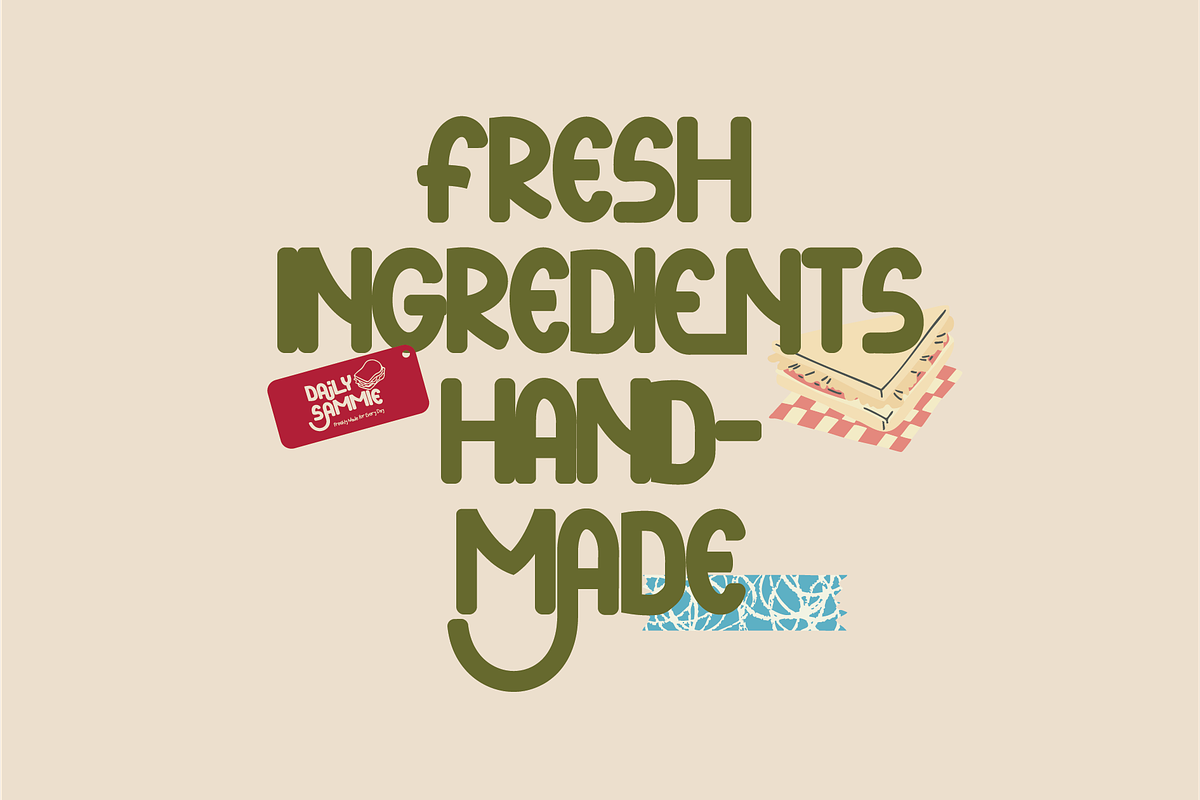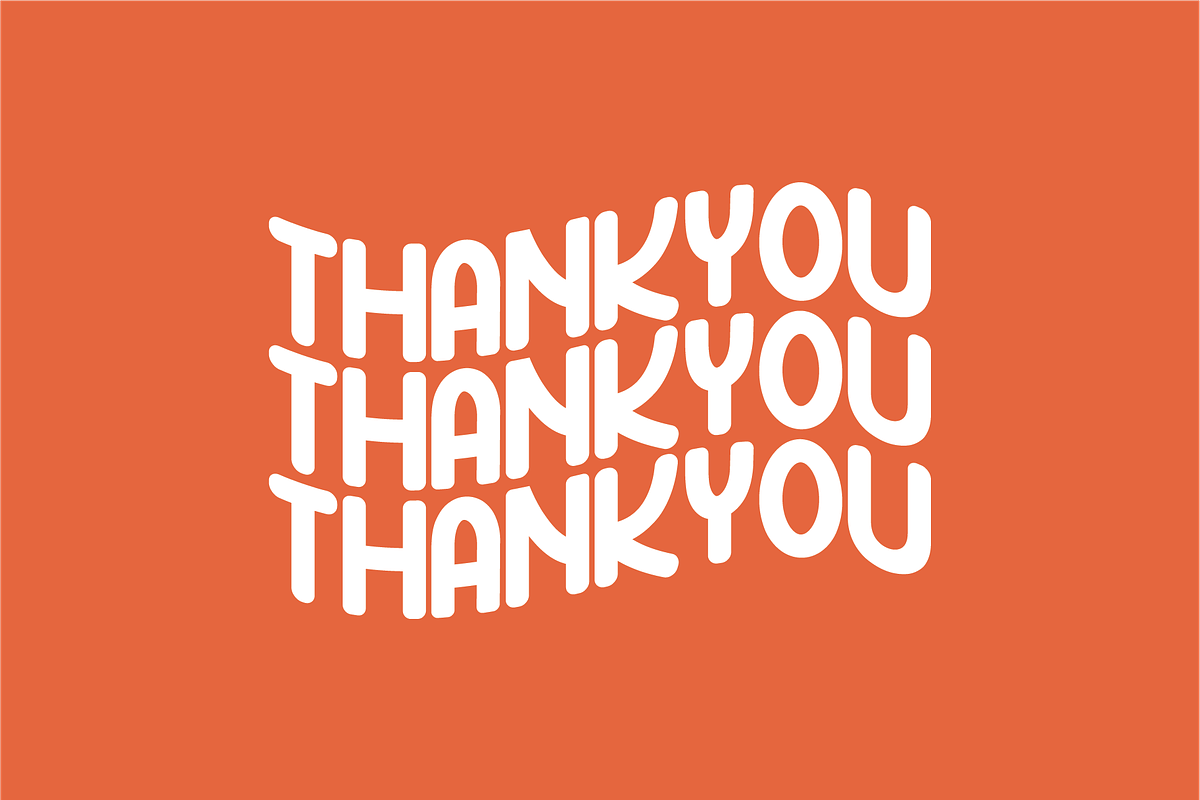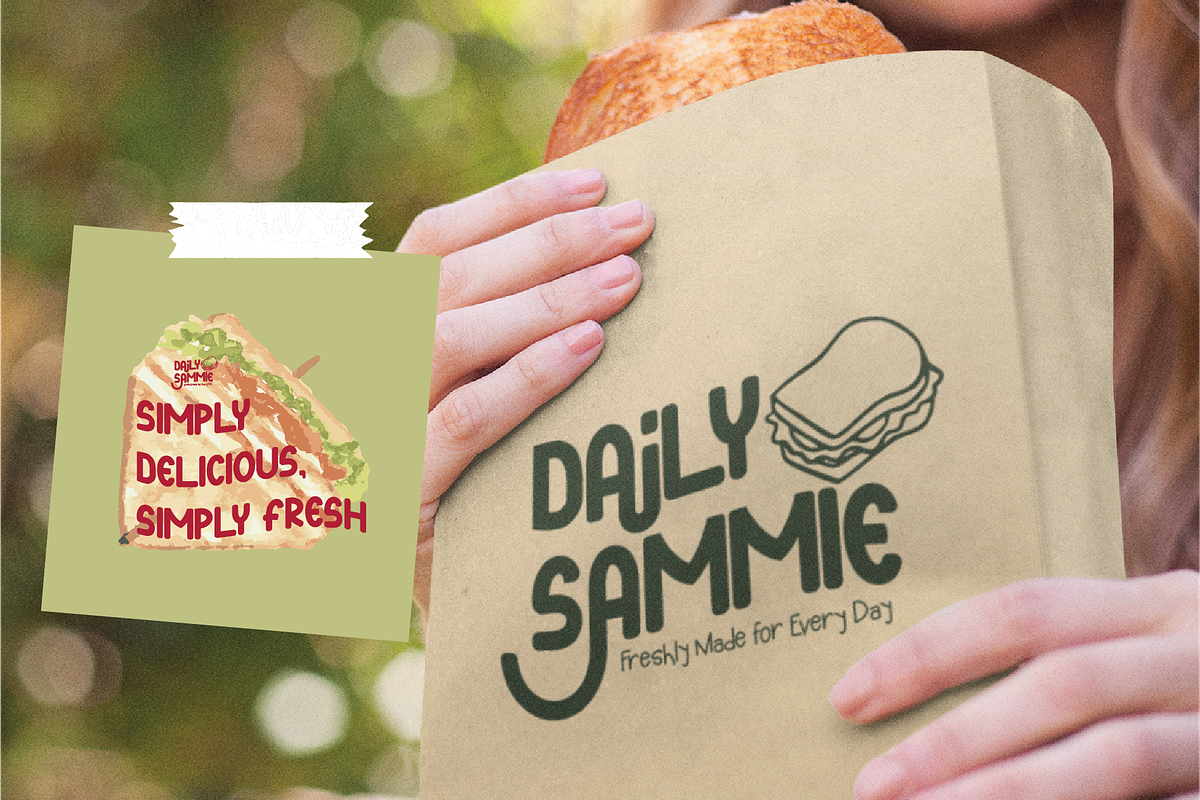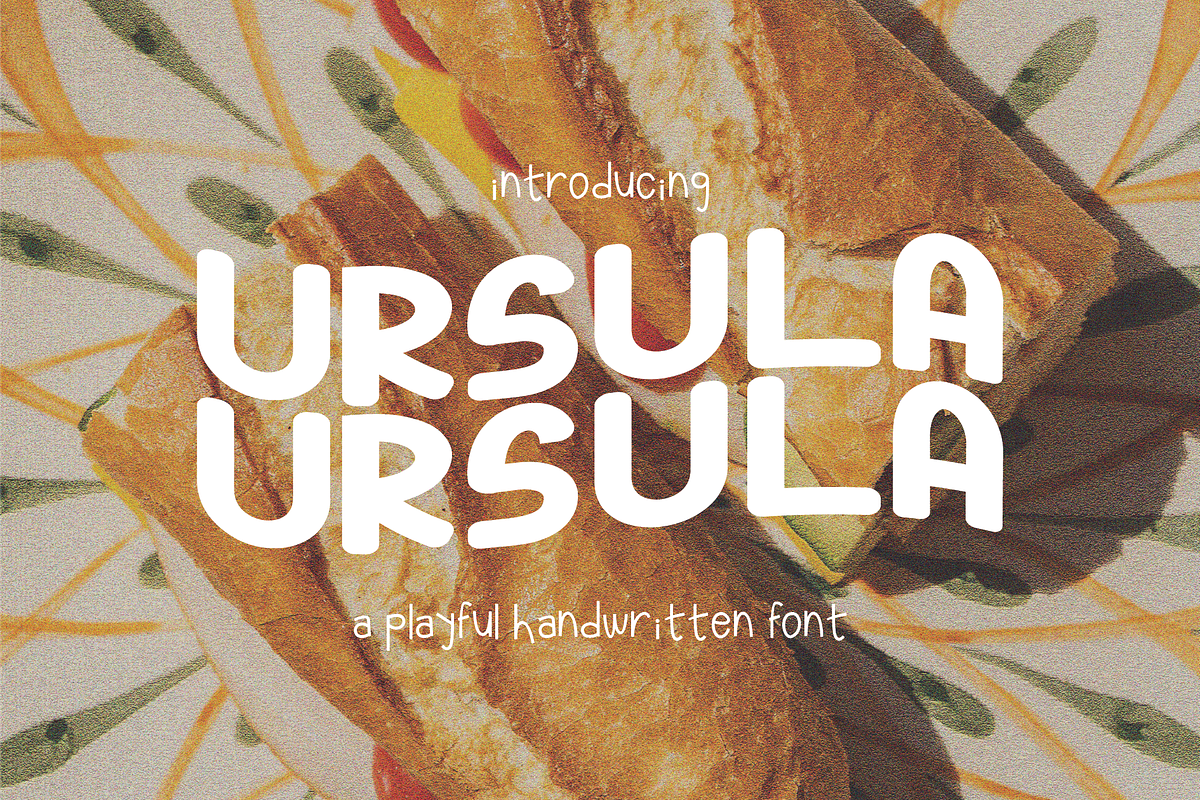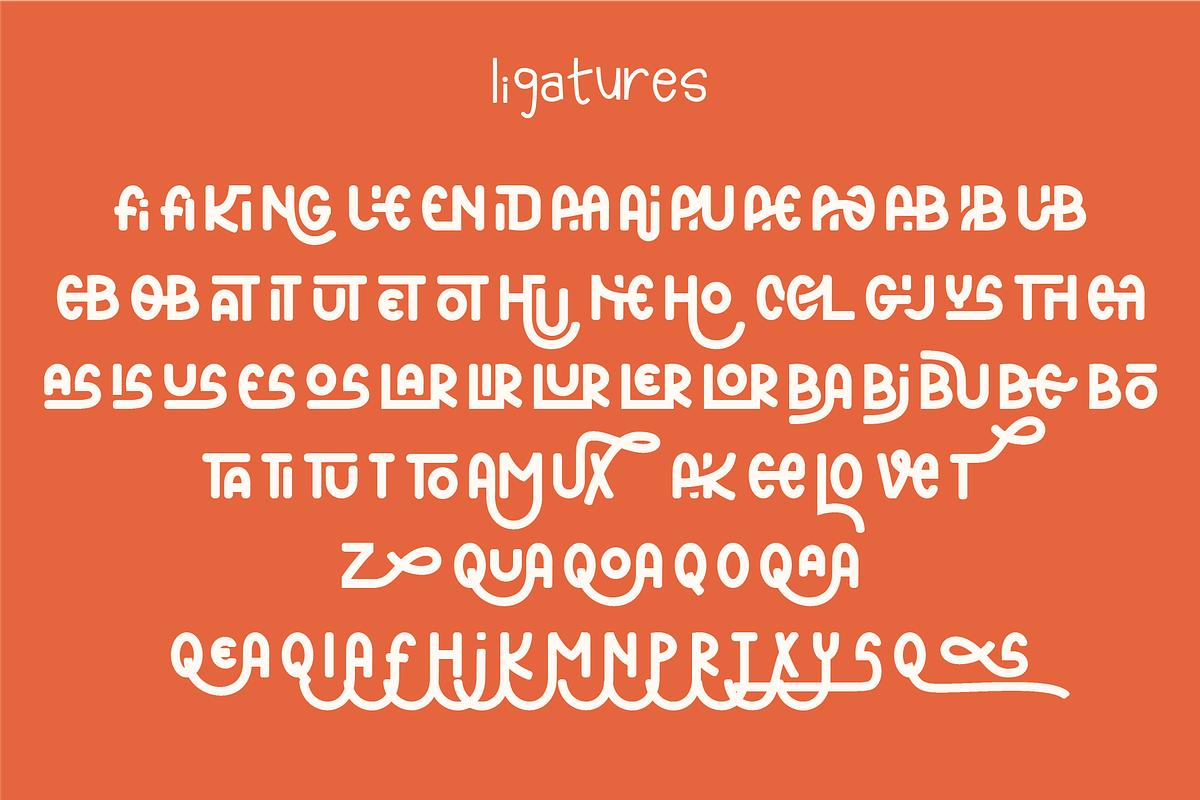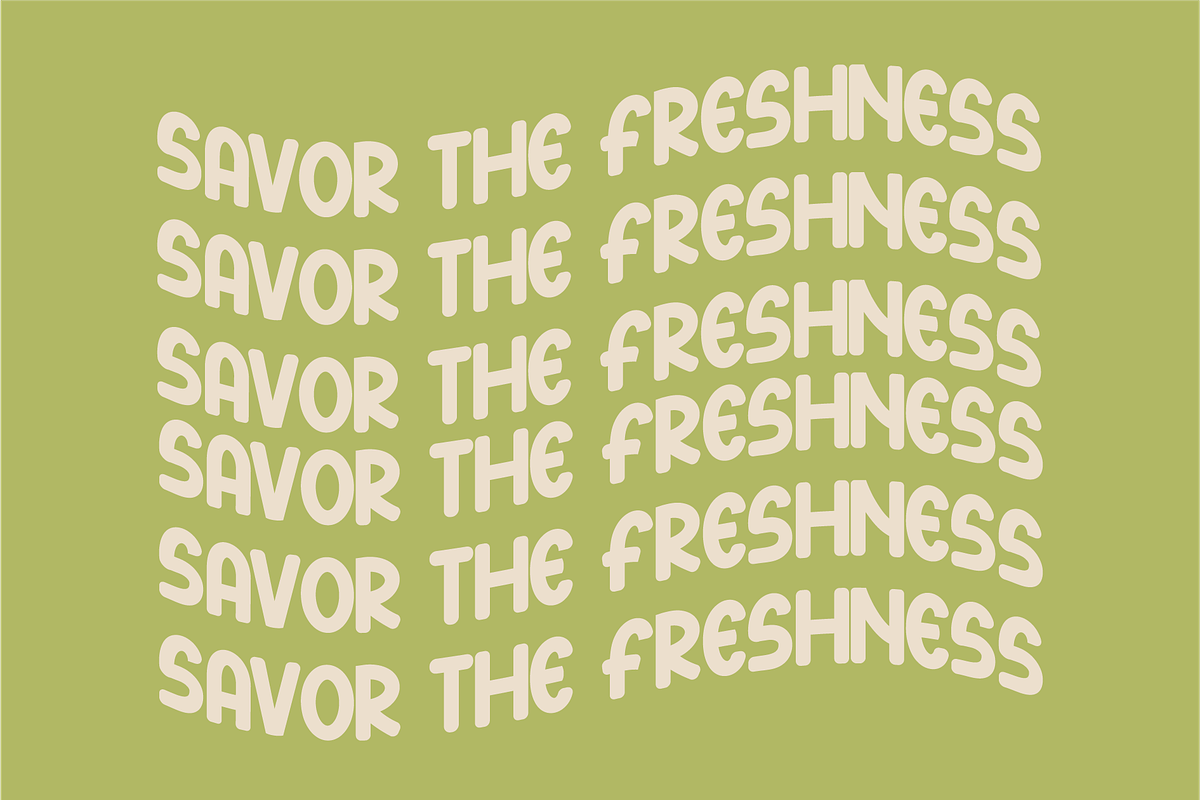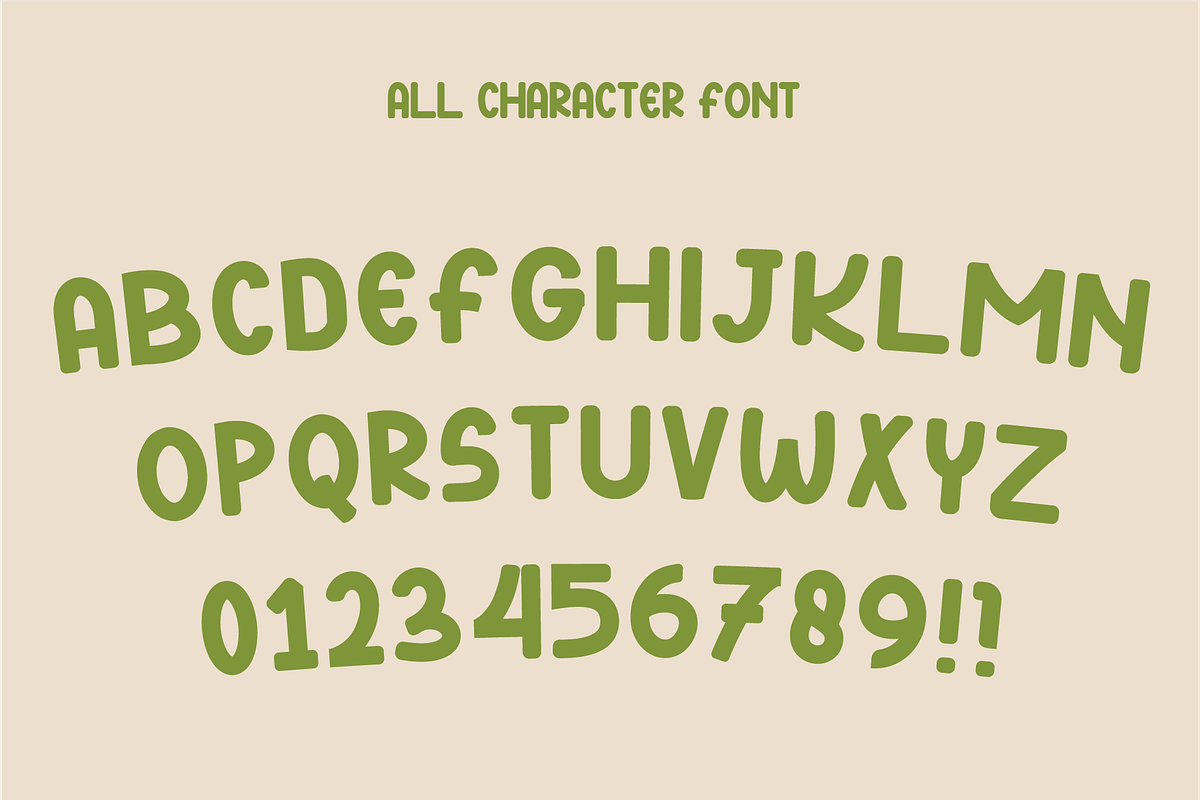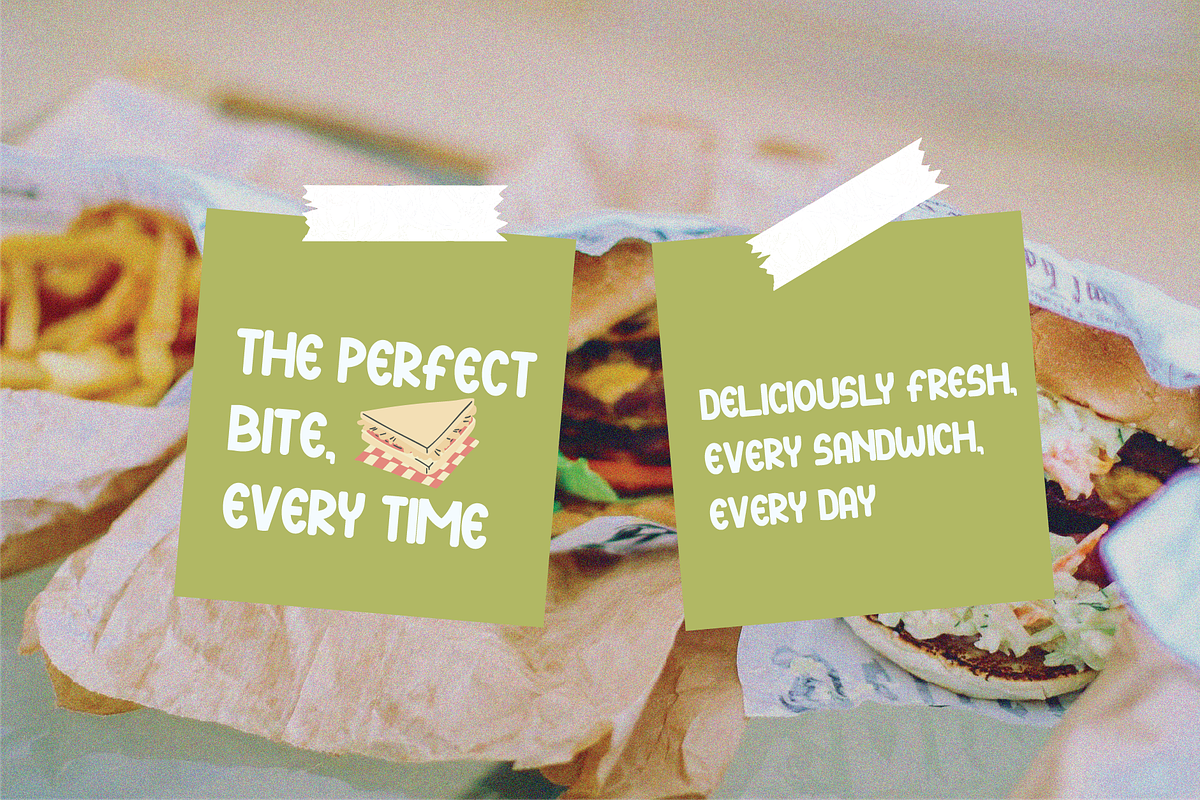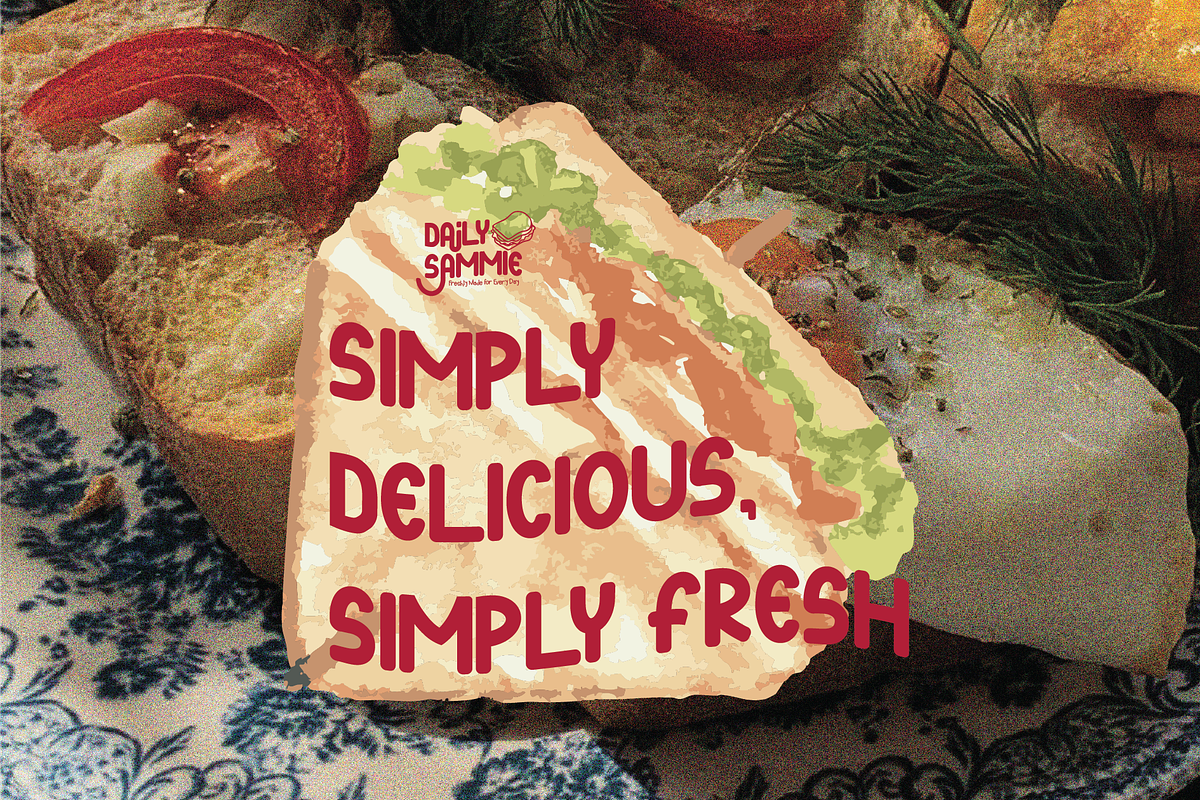
Ursula - Playful Handwritten Font
Ursula The font features bold, rounded letters with a playful, bubbly appearance. The letters have a soft, geometric structure, with a wide and open design that gives it a friendly and approachable vibe.
- Numbers, marks and symbols